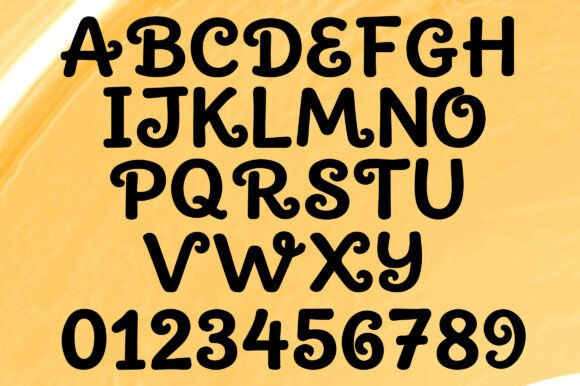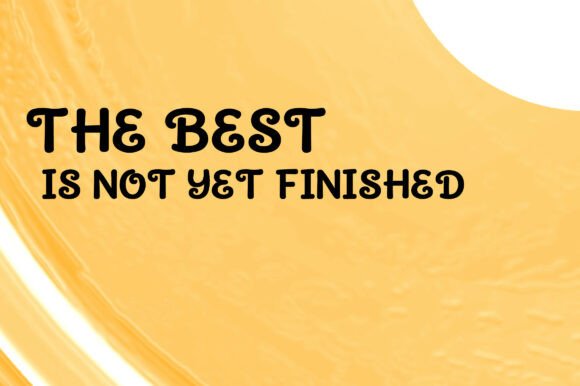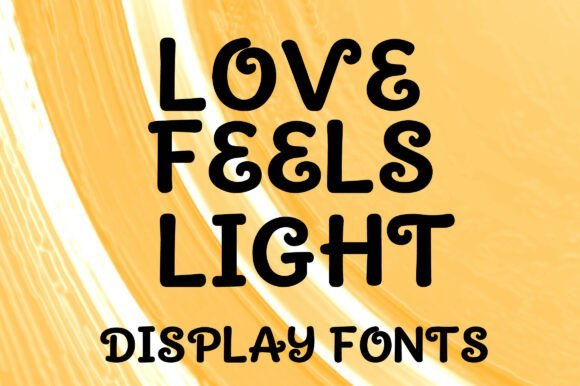
Introduction to Love Feels Light Font
Love Feels Light is a whimsical decorative display font with a playful handcrafted style and sweet retro charm.
Its uppercase letterforms feature smooth rounded strokes, cheerful spiral curls, and soft organic details that create a warm, uplifting, and eye-catching personality Love Feels Light is perfect for branding, posters, packaging, invitations, quotes, social media graphics, and creative projects that need a heartfelt and memorable statement.
Key Features of Love Feels Light Font
Why Choose Love Feels Light Font?